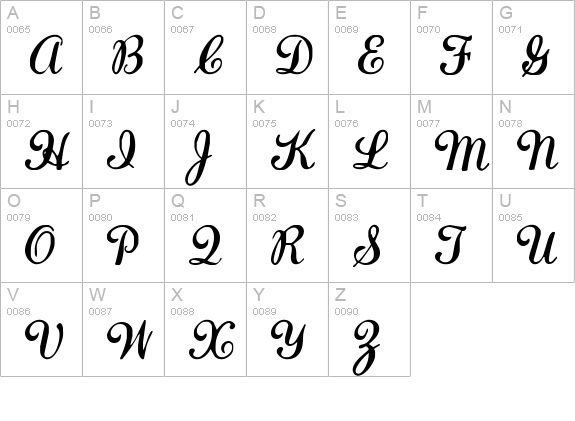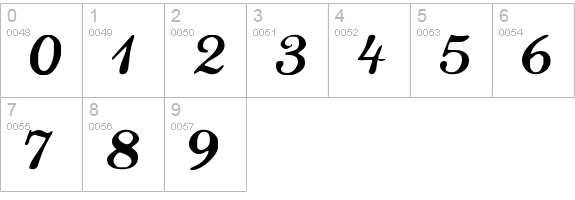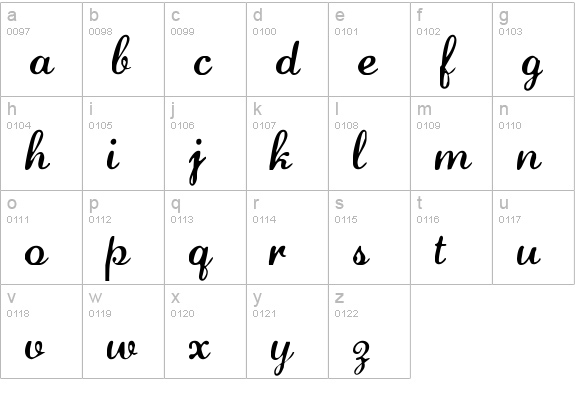
LaurenScript Regular Font Details
LaurenScript Regular is the standard, neutral variant in the LaurenScript typeface family \xE2\x80\x94 well suited to general body text, paragraphs, and standard typographic work.
LaurenScript Regular is a beautiful and versatile font that effortlessly combines elegance with a touch of playfulness. Its smooth and flowing letterforms create a sense of grace and sophistication, making it perfect for a wide range of design projects. This font's clean and crisp lines make it easily legible, ensuring that your message is conveyed with clarity and style. Whether you're designing a logo, crafting an invitation, or creating a stunning piece of typography art, LaurenScript Regular will elevate your work to new heights. One of the best things about LaurenScript Regular is that it is freely available to download at FontsMarket.com. This means that you can easily access and use this font without any hassle or cost. It's a fantastic option for both personal and commercial projects, allowing you to bring your creative visions to life without breaking the bank. With its graceful curves and timeless appeal, LaurenScript Regular is sure to make a lasting impression. Its versatility and accessibility make it a must-have in any designer's toolkit. So why wait? Visit FontsMarket.com today and unleash the creative potential of LaurenScript Regular. Download it for free and start adding a touch of elegance to your designs.